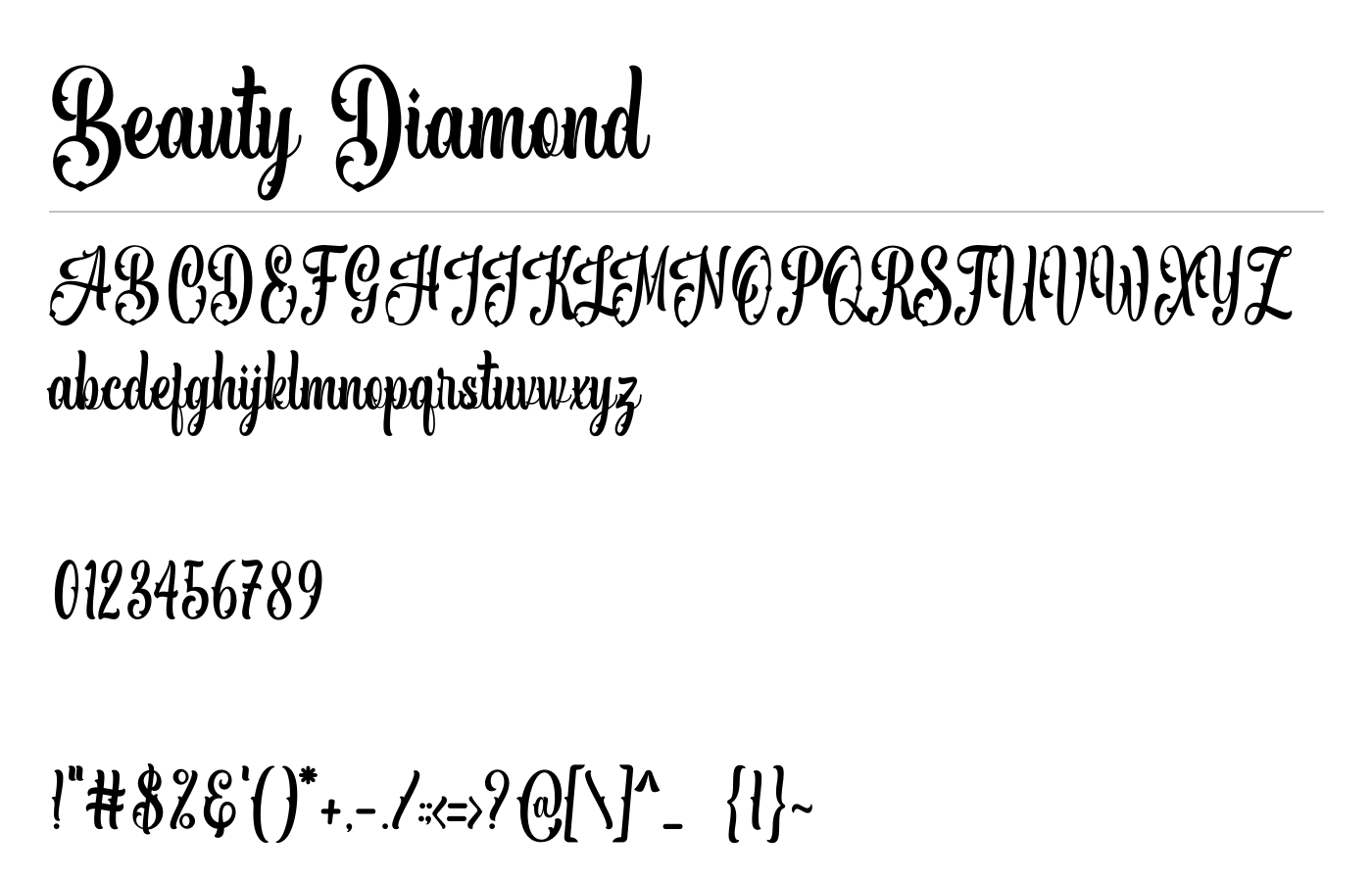
Beauty Diamond is a decorative script font with elegant, flowing strokes and unique diamond-shaped accents that add a distinctive, luxurious flair. Its condensed letterforms and high contrast between thick and thin lines make it ideal for creating sophisticated branding, invitations, and display headlines that demand attention with a touch of glamour. This font works best where a refined, stylish impression is desired, especially in fashion and beauty contexts.
Beauty Diamond Font
About Beauty Diamond Font
| Font family | Beauty Diamond Font |
| Designer | Hamber Perdiansyah |